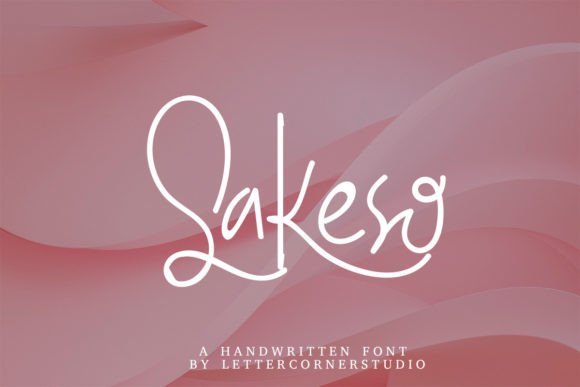
Step into the realm of elegance and charm with Sakeso Script, a captivating calligraphy font family crafted to awaken the romantic within you. This script exudes grace and sophistication, adorning your designs with a touch of luxury. Inspired by the art of handwritten love letters, Sakeso breathes life into your visual creations, evoking a sense of intimacy and heartfelt connection.
With its playful dance along the baseline, Sakeso adds a touch of whimsy and dynamism to your projects. Its carefully crafted characters seamlessly flow together, creating a visually striking effect that captivates the eyes. Whether you're designing wedding invitations, heartfelt greeting cards, or elegant logos, Sakeso effortlessly elevates your designs, transforming them into works of art.
Unleash your creativity and immerse yourself in a world of boundless possibilities with Sakeso. Its versatility knows no bounds, adapting effortlessly to a multitude of design styles. From modern and minimalist to vintage and classic, Sakeso blends seamlessly, adding a touch of timeless beauty to your projects. Let your imagination soar as you explore the endless applications of this remarkable font family.
Sakeso is meticulously crafted with OpenType features, granting you access to a treasure trove of alternate characters, ligatures, and swashes. These exquisite details add depth and dimension to your designs, allowing you to create captivating compositions that leave a lasting impression.
Welcome to the world of Sakeso Script, where elegance, charm, and creativity intertwine. Let this font family ignite your passion for design, transforming your projects into masterpieces that resonate with beauty and sophistication. Embrace the allure of Sakeso and embark on an artistic adventure that knows no bounds.